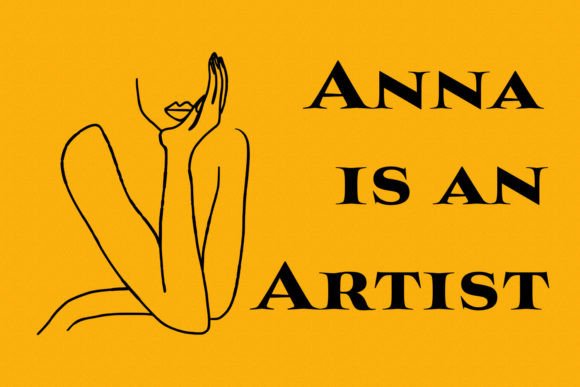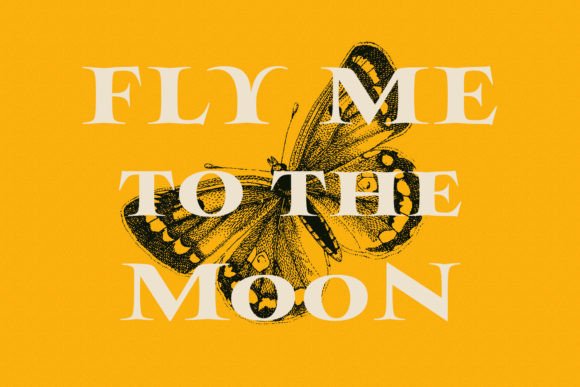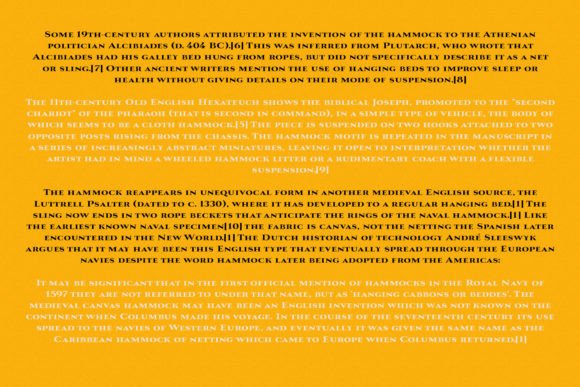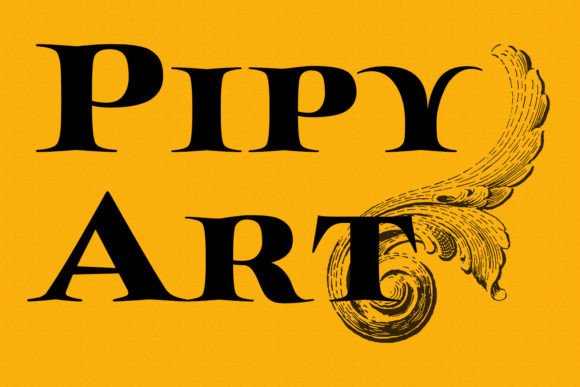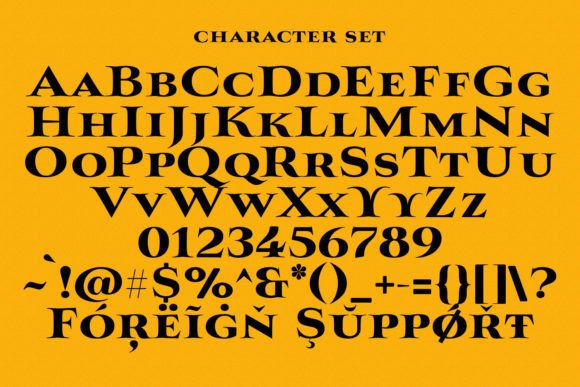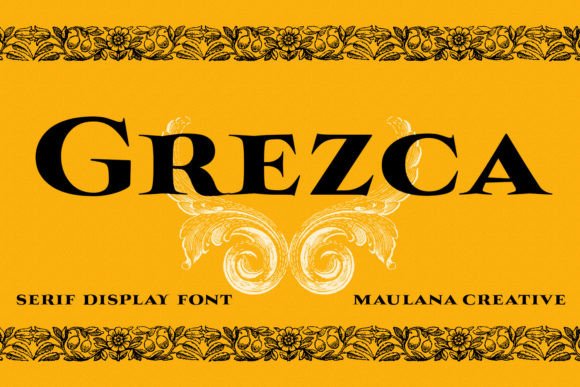
Introducing Grezca Font: A Timeless Classic for Creative Projects
Are you on the hunt for a font that exudes elegance, sophistication, and a dash of playfulness? Look no further than Grezca Font, a stunning decorative serif display font that’s perfect for a wide range of creative projects. In this article, we’ll dive into the world of Grezca, exploring its features, benefits, and uses, and why it’s a must-have for designers and crafters alike.
A Classic Decorative Serif Display Font
Grezca Font is a beautifully crafted font that boasts a medium stroke, fun character, and a touch of ligatures and alternates. Its classic decorative serif design makes it an excellent choice for projects that require a sense of tradition and sophistication. Whether you’re working on a logo design, social media graphics, movie titles, book titles, or even a short or long text letter, Grezca is an excellent option to consider.
One of the standout features of Grezca Font is its versatility. This font is not limited to a specific type of project; instead, it’s designed to be adaptable and flexible. You can use it as a primary font or as a secondary font paired with script or serif fonts to create a stunning visual effect. The possibilities are endless, and with Grezca, you can experiment with different combinations to find the perfect fit for your project.
Grezca Font is PUA (Private Use Area) encoded, which means you can access all the amazing glyphs and ligatures with ease. This feature makes it simple to get the most out of your font, allowing you to create complex and visually appealing designs without any hassle. With Grezca, you can unlock a world of creative possibilities and bring your ideas to life.
Grezca Font is a dream come true for designers and crafters. Whether you’re a professional designer or a DIY enthusiast, this font is designed to help you create stunning work. With Grezca, you can add a touch of elegance and sophistication to your projects, making them stand out from the crowd. From logo designs to social media graphics, and from movie titles to book covers, Grezca is the perfect companion for any creative project.
Why Choose Grezca Font?
So, why should you choose Grezca Font for your next project? Here are just a few reasons:
- Elegant Design: Grezca boasts a classic decorative serif design that’s both elegant and sophisticated.
- Versatility: This font is adaptable and flexible, making it perfect for a wide range of projects.
- PUA Encoded: With Grezca, you can access all the amazing glyphs and ligatures with ease.
- Easy to Use: This font is simple to use, making it perfect for designers and crafters of all levels.
Tips for Using Grezca Font
To get the most out of Grezca Font, here are a few tips to keep in mind:
- Experiment with Different Sizes: Grezca looks great in a variety of sizes, so don’t be afraid to experiment and find the perfect fit for your project.
- Pair with Other Fonts: Try pairing Grezca with script or serif fonts to create a stunning visual effect.
- Use it for Headings and Titles: Grezca is perfect for headings and titles, adding a touch of elegance and sophistication to your project.
In conclusion, Grezca Font is a timeless classic that’s perfect for designers and crafters looking to add a touch of elegance and sophistication to their projects. With its versatile design, PUA encoding, and ease of use, Grezca is an excellent choice for a wide range of creative projects. Whether you’re working on a logo design, social media graphics, movie titles, book titles, or even a short or long text letter, Grezca Font is sure to impress. So why wait? Get creative with Grezca Font today and bring your ideas to life!